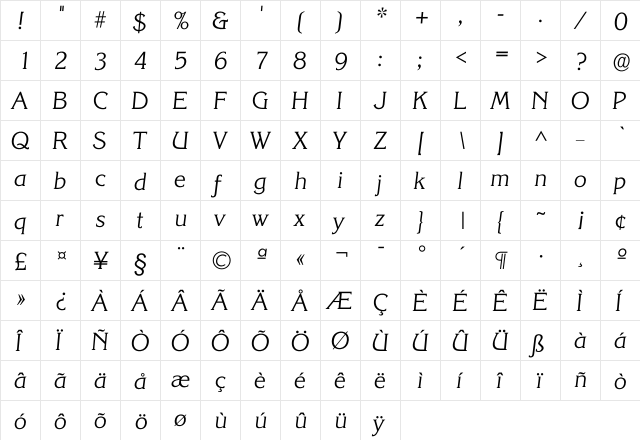
Ikorinth Light
Design Context for Ikorinth Typeface
Ikorinth offers clean, dependable letterforms without strong stylistic allegiance, making it a practical choice for designers who need flexibility. Its slender proportions lend an understated elegance to any composition.